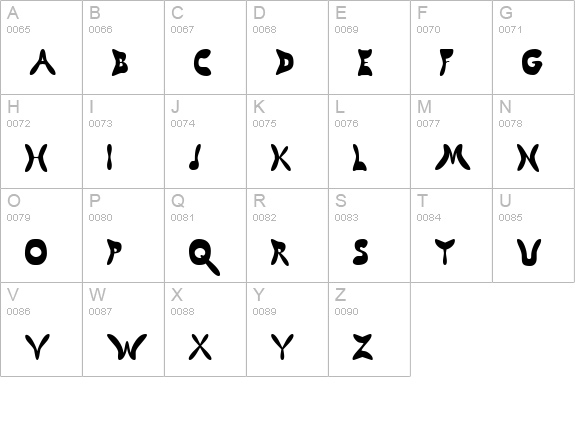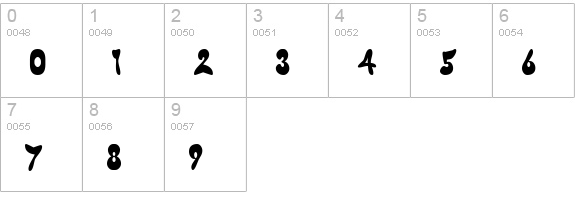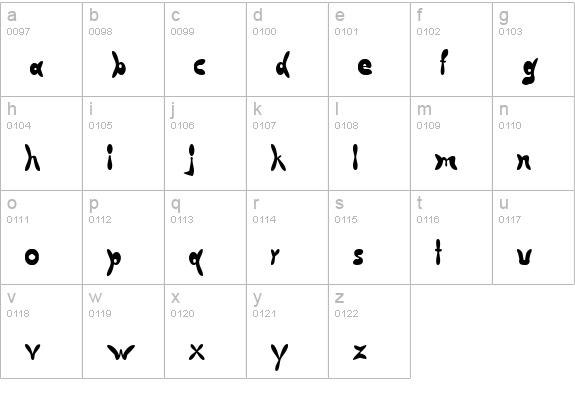
Butterfly Chromosome AOE Font Details
The Butterfly Chromosome AOE font is a stunning display font that exudes elegance and sophistication. Its intricate details and unique design make it perfect for adding a touch of charm to any project. With its delicate curves and whimsical flourishes, this font is sure to captivate the eye and enhance the overall aesthetic of your designs. What's even better is that the Butterfly Chromosome AOE font is completely free to download at FontsMarket.com! That's right, you can easily access this beautiful font at no cost and start using it in your creative projects right away. Whether you're working on a branding project, a wedding invitation, or a social media graphic, this font will elevate your designs and make them stand out from the crowd. Don't miss out on this opportunity to add a touch of magic to your work with the Butterfly Chromosome AOE font - download it now for free at FontsMarket.com!